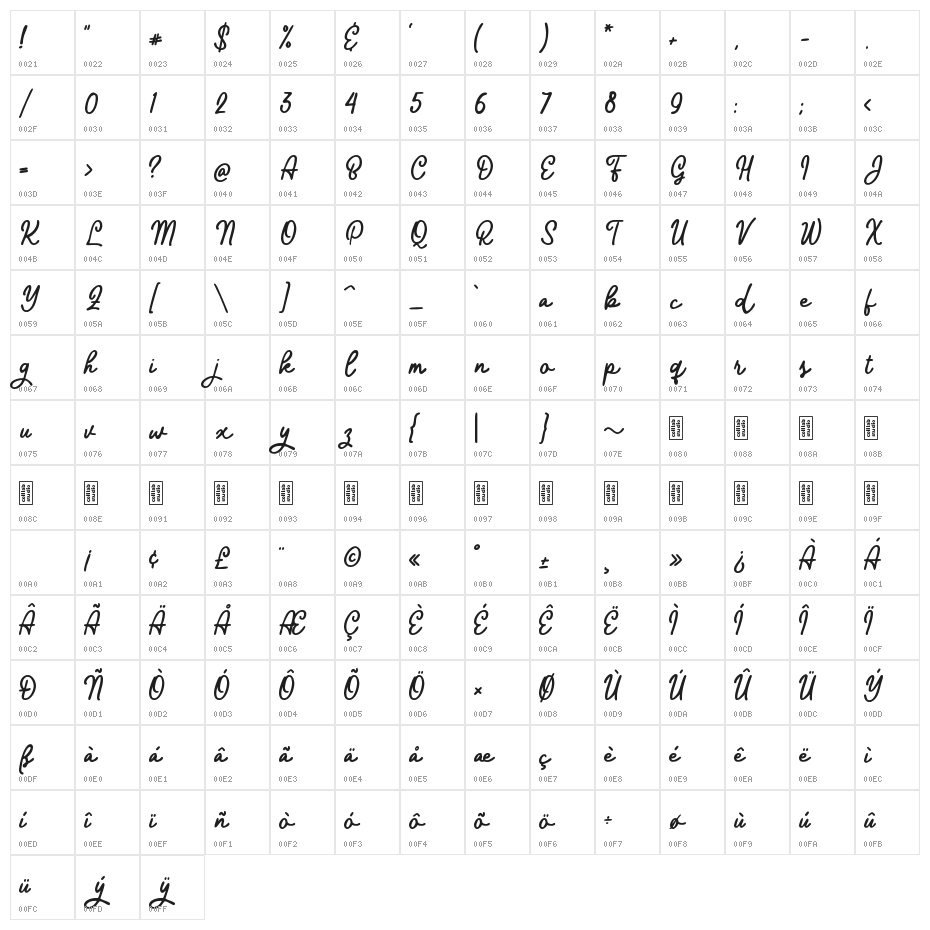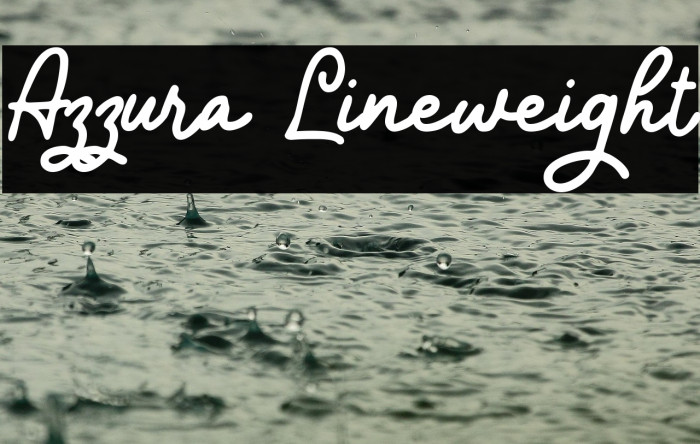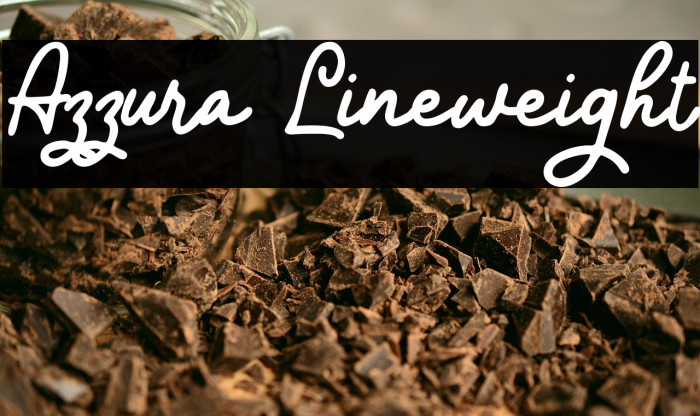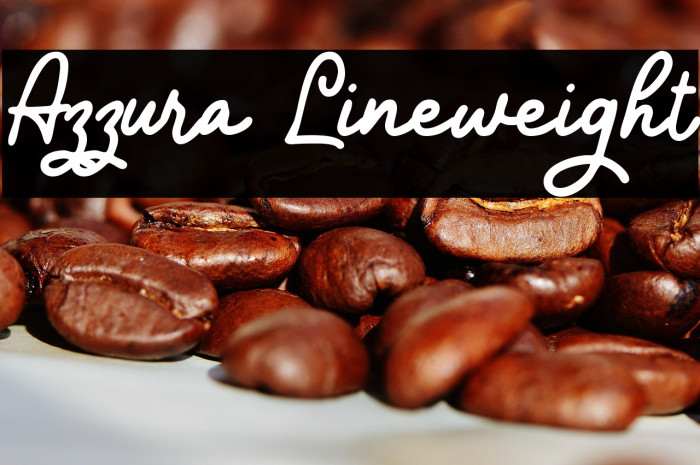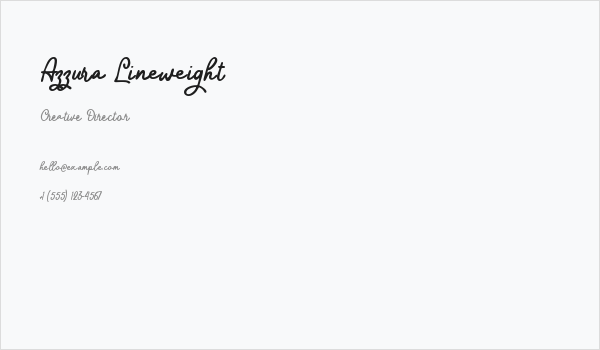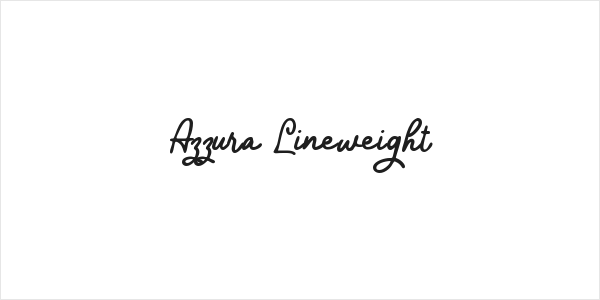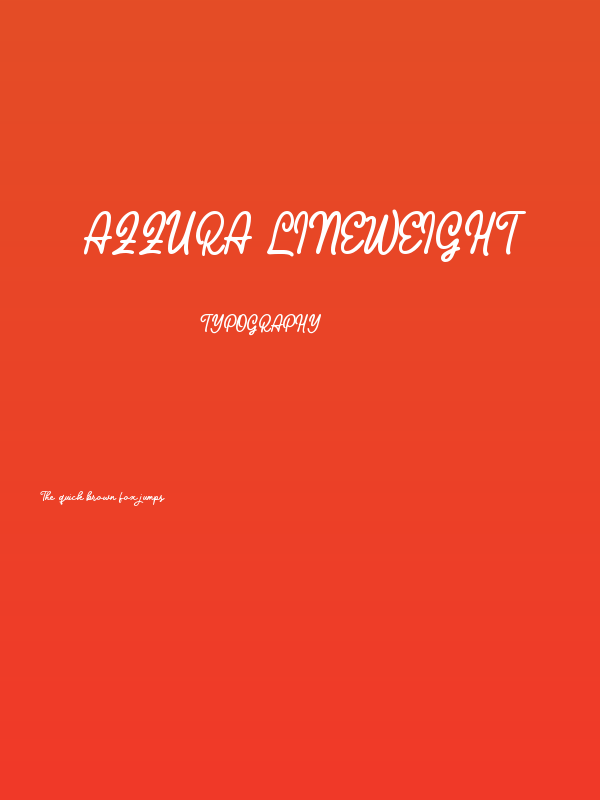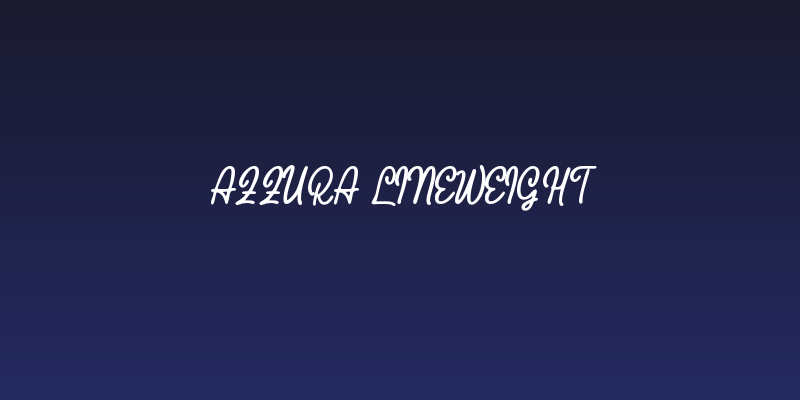
Azzura Lineweight Font
Azzura Lineweight Description
This font features a lively and dynamic script style, characterized by its fluid, cursive strokes and playful loops. The uppercase letters exhibit a consistent height, with a slight slant that adds to the font's energetic feel. The lowercase letters maintain a harmonious flow, connecting smoothly in a way that mimics natural handwriting. Numbers are clear and legible, maintaining the same playful style as the letters. Special characters are well-integrated, ensuring versatility in various design contexts. The overall appearance is both elegant and approachable, making it suitable for a wide range of creative projects.